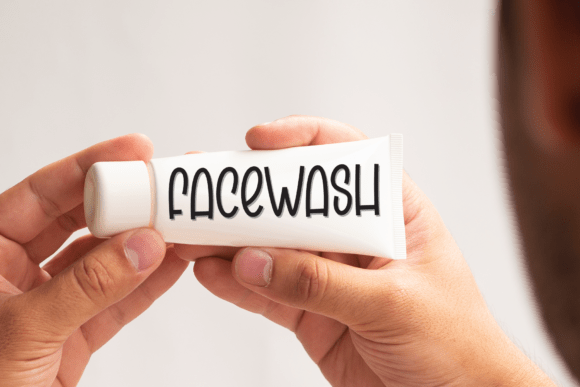
Introducing Daily Summer Font: The Perfect Blend of Clarity and Relaxed Style
When it comes to selecting the right font for your design project, the choices can be overwhelming. However, if you’re looking for a font that seamlessly blends clarity with a relaxed, approachable vibe, Daily Summer Font is an excellent choice. This neat and casual display font is designed to bring a modern yet laid-back feel to your headlines, posters, packaging, and branding.
What is Daily Summer Font?
Daily Summer Font is a thoughtfully crafted display font that stands out for its clean lines and friendly letterforms. Its balanced structure ensures that it remains highly readable, even at larger sizes, making it perfect for a wide range of applications. Whether you’re working on a poster, a product package, or a brand identity, Daily Summer Font brings a touch of personality and approachability to your design.
Key Features of Daily Summer Font
• Clean Lines: The font features clean, well-defined lines that contribute to its clarity and readability.
• Balanced Structure: A well-balanced design ensures that the font remains aesthetically pleasing and easy to read.
• Playful Energy: Despite its clean and modern look, Daily Summer Font has a playful energy that can add personality to your designs.
• Versatility: Suitable for various design projects, including headlines, posters, packaging, and branding.
The Benefits of Using Daily Summer Font
Choosing the right font for your project is crucial as it can significantly impact the overall perception and effectiveness of your design. Daily Summer Font offers several benefits that make it an excellent choice for designers:
• Enhanced Readability: Its clean design and balanced structure ensure that your message is conveyed clearly and effectively.
• Modern yet Laid-Back Aesthetic: The font strikes the perfect balance between modernity and a relaxed vibe, making it suitable for brands that want to appear approachable and contemporary.
• Versatility: Daily Summer Font can be used across a variety of mediums, from digital platforms to print materials, without losing its appeal.
• Personality: It adds a unique personality to your designs without overwhelming the message, helping your brand stand out.
Use Cases for Daily Summer Font
Daily Summer Font’s versatility makes it suitable for a wide range of design projects. Here are some use cases where this font truly shines:
• Headlines and Titles: Its bold and clean design makes it perfect for headlines and titles that need to grab attention.
• Posters and Flyers: The font’s playful energy and readability make it an excellent choice for posters and flyers.
• Packaging: Daily Summer Font can add a modern and friendly touch to product packaging, making it more appealing to customers.
• Branding: For brands aiming to convey a modern yet approachable image, this font can be a valuable asset in their branding materials.
Tips for Using Daily Summer Font Effectively
To get the most out of Daily Summer Font, consider the following tips:
• Pair it with Complementary Fonts: While Daily Summer Font is versatile, pairing it with complementary fonts can enhance its appeal and create visual interest.
• Experiment with Sizes and Colors: Don’t be afraid to experiment with different sizes and colors to find the perfect combination that suits your design.
• Maintain Readability: Ensure that the font remains readable, especially when using it for longer texts or at smaller sizes.
Daily Summer Font is a unique and versatile display font that offers the perfect blend of clarity, modernity, and a relaxed vibe. Its clean lines, balanced structure, and playful energy make it an excellent choice for a wide range of design projects. Whether you’re working on headlines, posters, packaging, or branding, Daily Summer Font can help you achieve a modern yet laid-back aesthetic that resonates with your audience. By incorporating this font into your designs, you can add personality and approachability without compromising on readability or style.